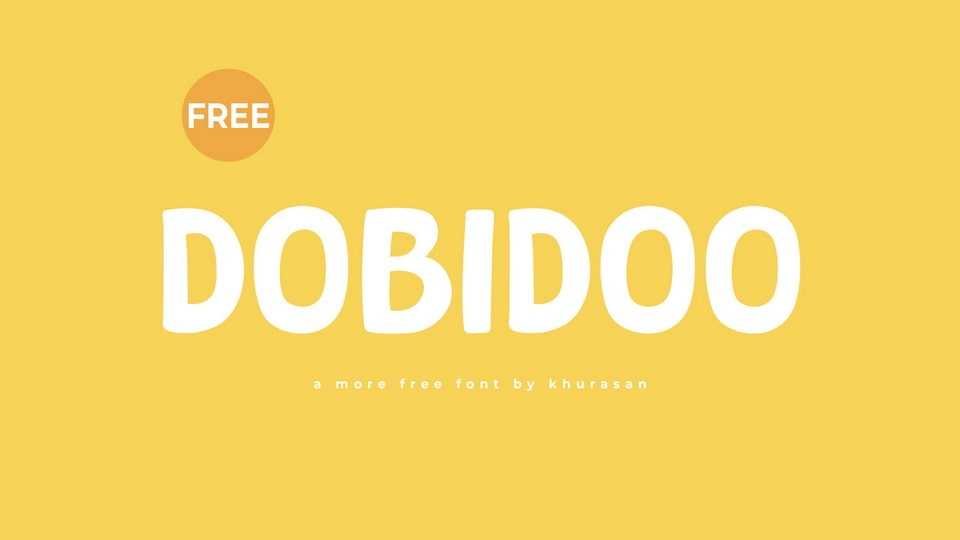
Download Dobidoo font, a bold and friendly hand-crafted cartoon typeface that radiates warmth and playfulness. It features thick, rounded letterforms with a touch of whimsy, capturing the essence of hand-drawn creativity.